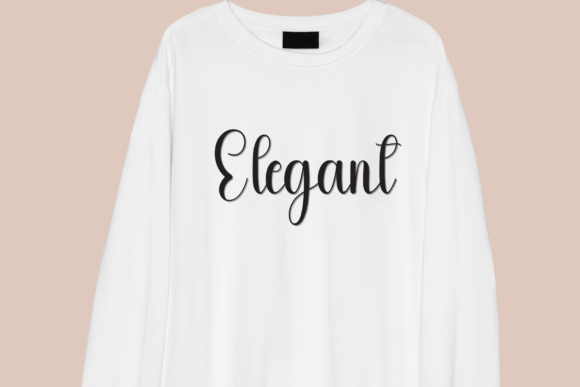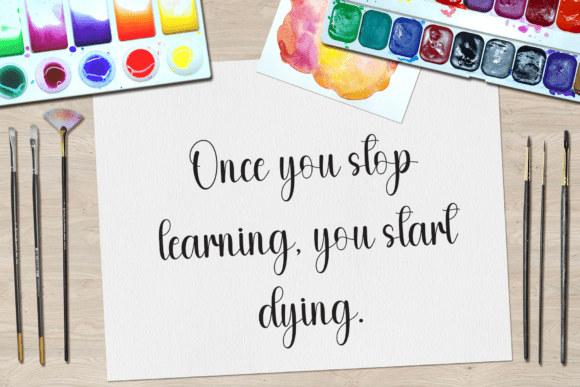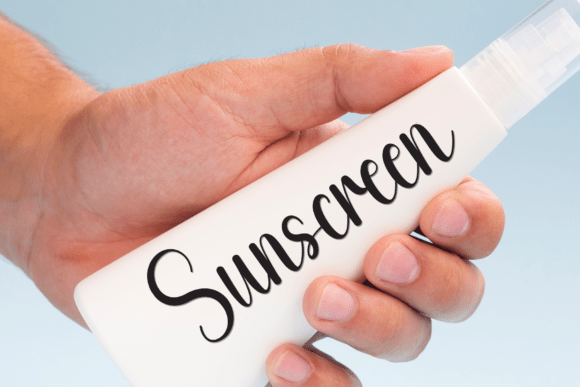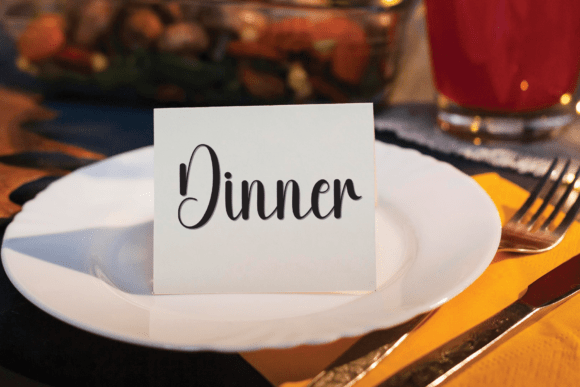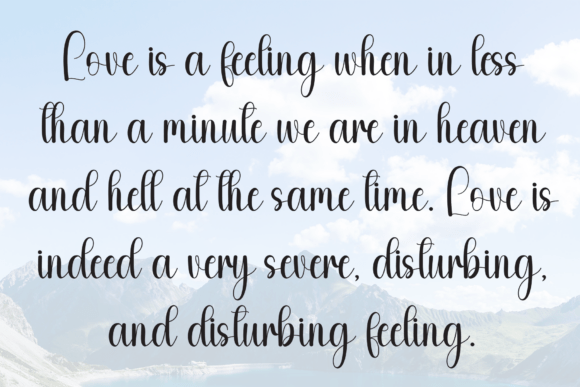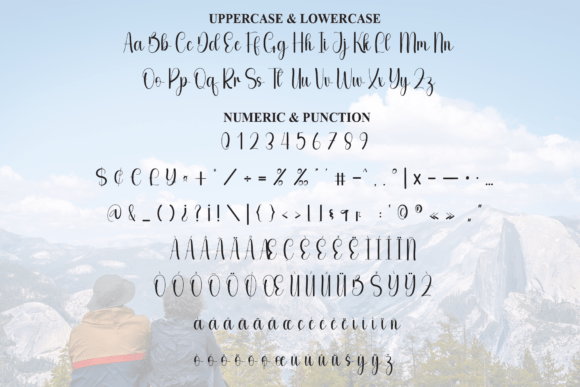
Introducing Getaway Font: Elevate Your Designs with Elegance and Modern Charm
In the world of typography, a font can make all the difference in the aesthetic and appeal of a design. For designers and crafters looking to add a touch of sophistication and personality to their work, Getaway Font is an exceptional choice. This stylish script font is designed to exude elegance and modern charm, making it perfect for a variety of design projects.
The Beauty of Getaway Font
Getaway Font is characterized by its fluid strokes, graceful curves, and carefully balanced letterforms. These features come together to capture the beauty of hand-drawn calligraphy with a contemporary edge. The font’s natural flow and refined details make it a versatile choice for various design applications, from logos and invitations to packaging and social media graphics.
Key Features of Getaway Font
- Fluid Strokes: Getaway Font boasts fluid strokes that give it a dynamic and elegant feel. These strokes contribute to the font’s modern charm and make it stand out in any design.
- Graceful Curves: The font’s graceful curves add to its sophistication and aesthetic appeal. These curves make Getaway Font perfect for designs that require a touch of elegance.
- Carefully Balanced Letterforms: Each letterform in Getaway Font is carefully crafted to ensure balance and harmony. This attention to detail makes the font highly readable and visually appealing.
Uses of Getaway Font
Getaway Font’s versatility makes it suitable for a wide range of design projects. Here are some of the ideal uses for this stylish script font:
- Logos: Create a lasting impression with a logo that exudes elegance and modernity. Getaway Font is perfect for branding and can help establish a sophisticated identity for your business.
- Invitations: Whether it’s a wedding invitation, birthday party, or corporate event, Getaway Font adds a touch of class and sophistication to any invitation.
- Packaging: Elevate your product packaging with a font that stands out. Getaway Font’s unique style can make your product packaging more appealing and memorable.
- Social Media Graphics: Create engaging social media graphics with Getaway Font. Its modern charm and elegance make it perfect for posts, stories, and other social media content.
Why Choose Getaway Font?
With so many fonts available, why choose Getaway Font? Here are a few reasons why designers and crafters prefer this stylish script font:
- Visual Appeal: Getaway Font delivers exceptional visual appeal with its fluid strokes, graceful curves, and carefully balanced letterforms.
- Versatility: This font is versatile and can be used for a variety of design projects, making it a valuable addition to any designer’s toolkit.
- Elegance and Modern Charm: Getaway Font combines elegance and modern charm, making it perfect for designers looking to add a touch of sophistication to their work.
Getaway Font is a stylish script font that can elevate your designs with its elegance and modern charm. Its fluid strokes, graceful curves, and carefully balanced letterforms make it perfect for a variety of design projects. Whether you’re a designer or crafter, Getaway Font is an excellent choice for adding a touch of sophistication and personality to your work. With its natural flow and refined details, this font delivers both visual appeal and versatility, making it a valuable asset for any design project.